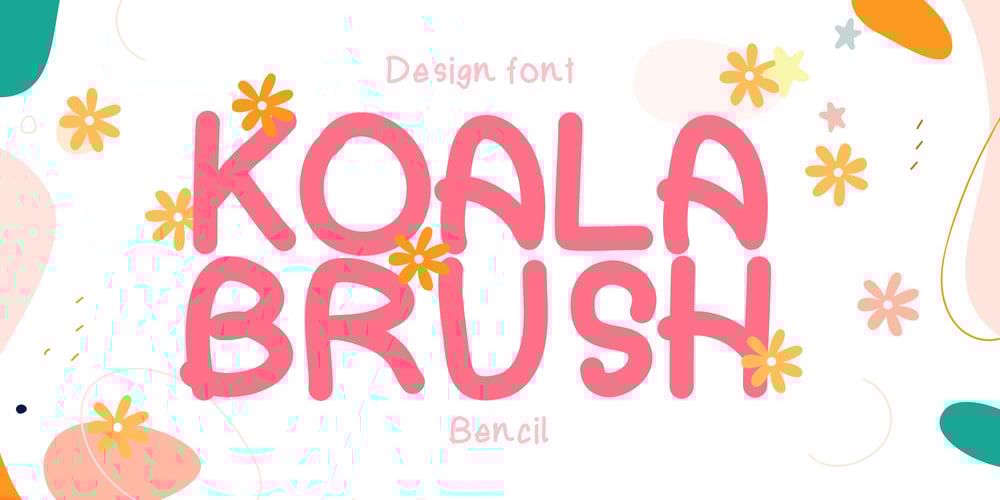
Koala Brush Font Family was designed by Matthew Carter and published by Bencil. Koala Brush contains 1 styles and family package options. KoalaBrush is a playful and friendly handwritten typeface that brings warmth and a touch of whimsy to any design. Inspired by the soft and cuddly nature of koalas, this font is perfect for adding a personal, approachable feel to your work. Its brush-like strokes and rounded letterforms create a relaxed, organic flow, making it ideal for children’s books, branding, social media graphics, and creative projects that require a cute and charming touch. KoalaBrush combines the ease of casual handwriting with the subtle uniqueness of natural brush lettering, making it both versatile and eye-catching. Whether used for headlines or body text, KoalaBrush promises to add character and personality to your designs.